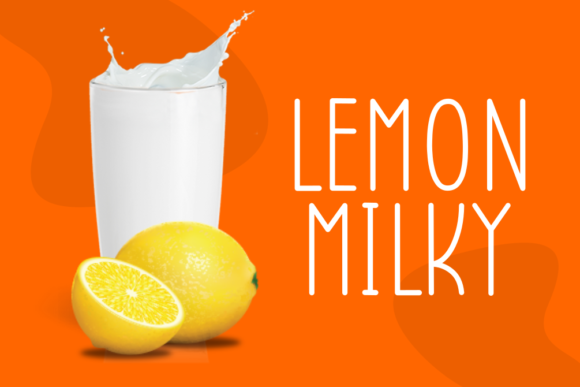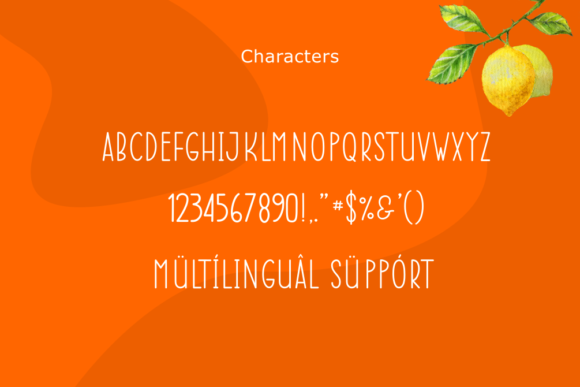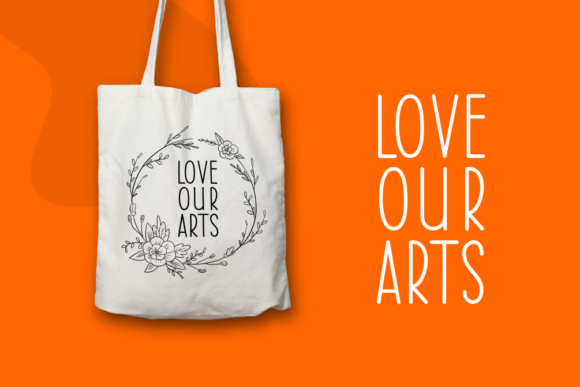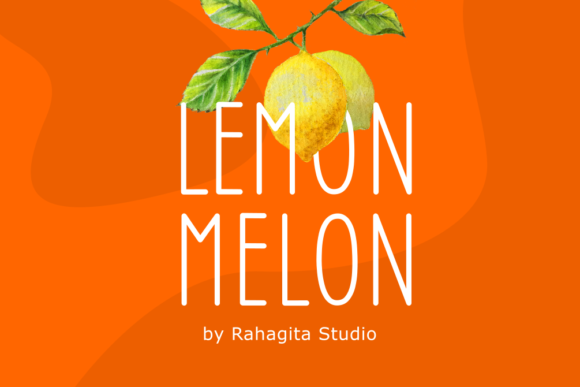
Introduction to Lemon Melon Font
Lemon Melon is a cute & fun display font.
This font is the perfect fit for all of your logos, branding, social media, and crafty DIY projects .
Key Features of Lemon Melon Font
Why Choose Lemon Melon Font?
Lemon Melon Font offers exceptional quality and versatility, making it a valuable addition to your design toolkit. Whether you’re creating for personal projects or commercial use, Lemon Melon Font delivers professional results.